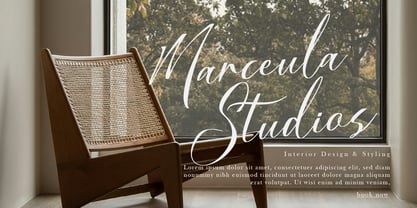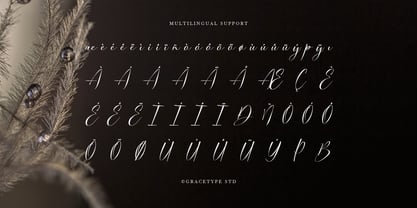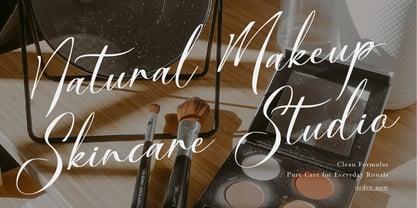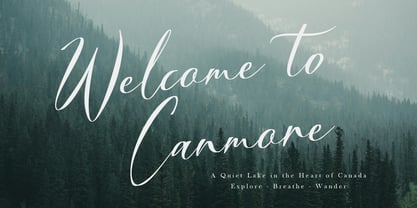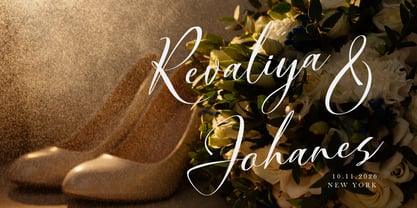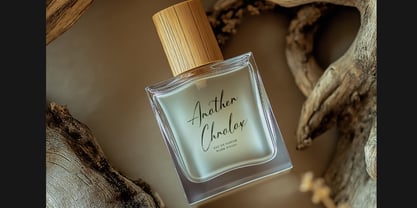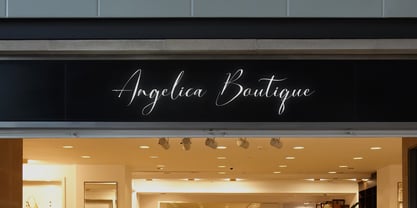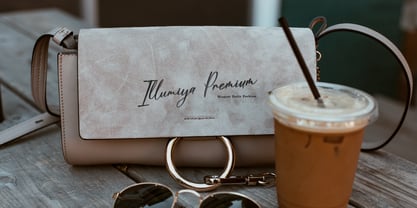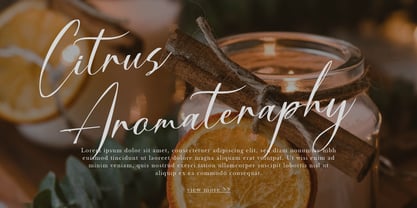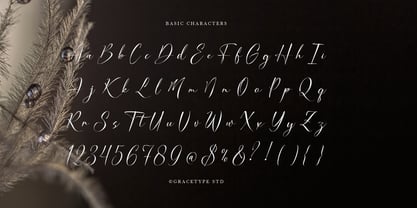
Dialmeray
by Tini Fitriani
Dialmeray | Elegant Calligraphy Script, from Gracetypestudio, suitable for any projects such as: logos, branding projects, homeware designs, product packaging, mugs, quotes, posters, shopping bags, t-shirts, book covers, name card, invitation cards, greeting cards, label, photography, watermark, special events, and all your other lovely projects that need a Script taste.